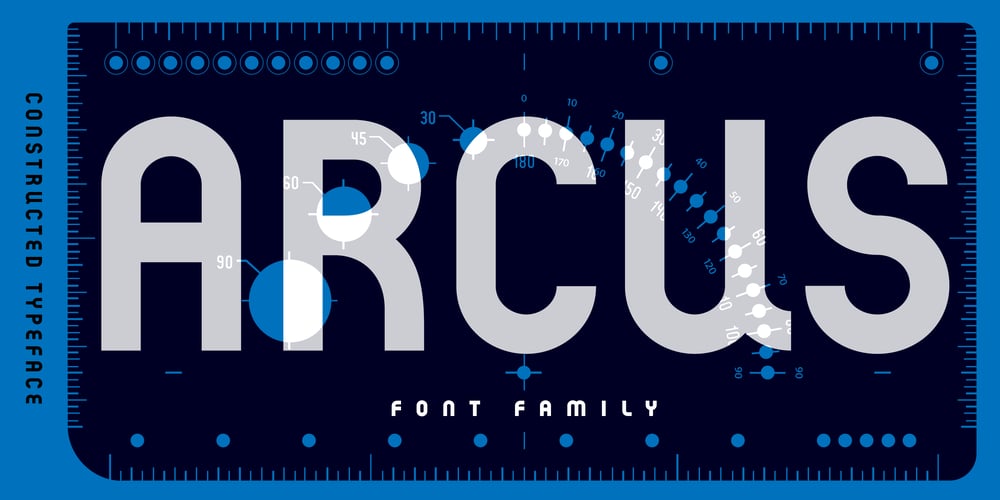
Arcus Font Family was designed by Samuel Čarnoký and published by CarnokyType. Arcus contains 12 styles and family package options. Arcus OpenType is a geometrically constructed font. The grounding principle is the round curve. The homogeneous character of this font is guaranteed by using this principle not only in drawings of particular letters but in the shaping of diacritical signs, too. The scope of the typeface weight is from Extra Light to Extra Bold while the complete font family includes 6 weights and their respective, well turned italics. This font contains a wide range of alternative signs, small capitals, lining and oldstyle numerals, fractions, superiors, inferiors, ligatures and discretionary ligatures; all this is within the frame of OpenType functions. This font type is not made for the typography of extensive texts. Best it can be used for headline display typeface or in creating logotypes and corporate identities.